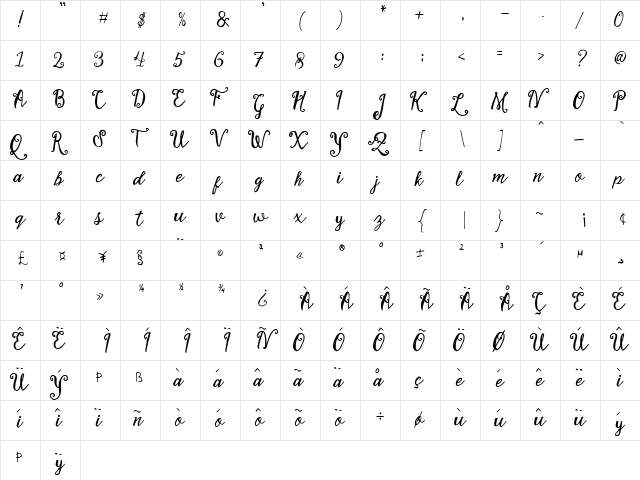
Stellanova Regular
| Foundry | ianmikraz |
| Designer | ianmikraz |
Design Context for Stellanova Typeface
Stellanova is a composed and adaptable typeface that performs quietly and consistently across a wide range of design contexts.